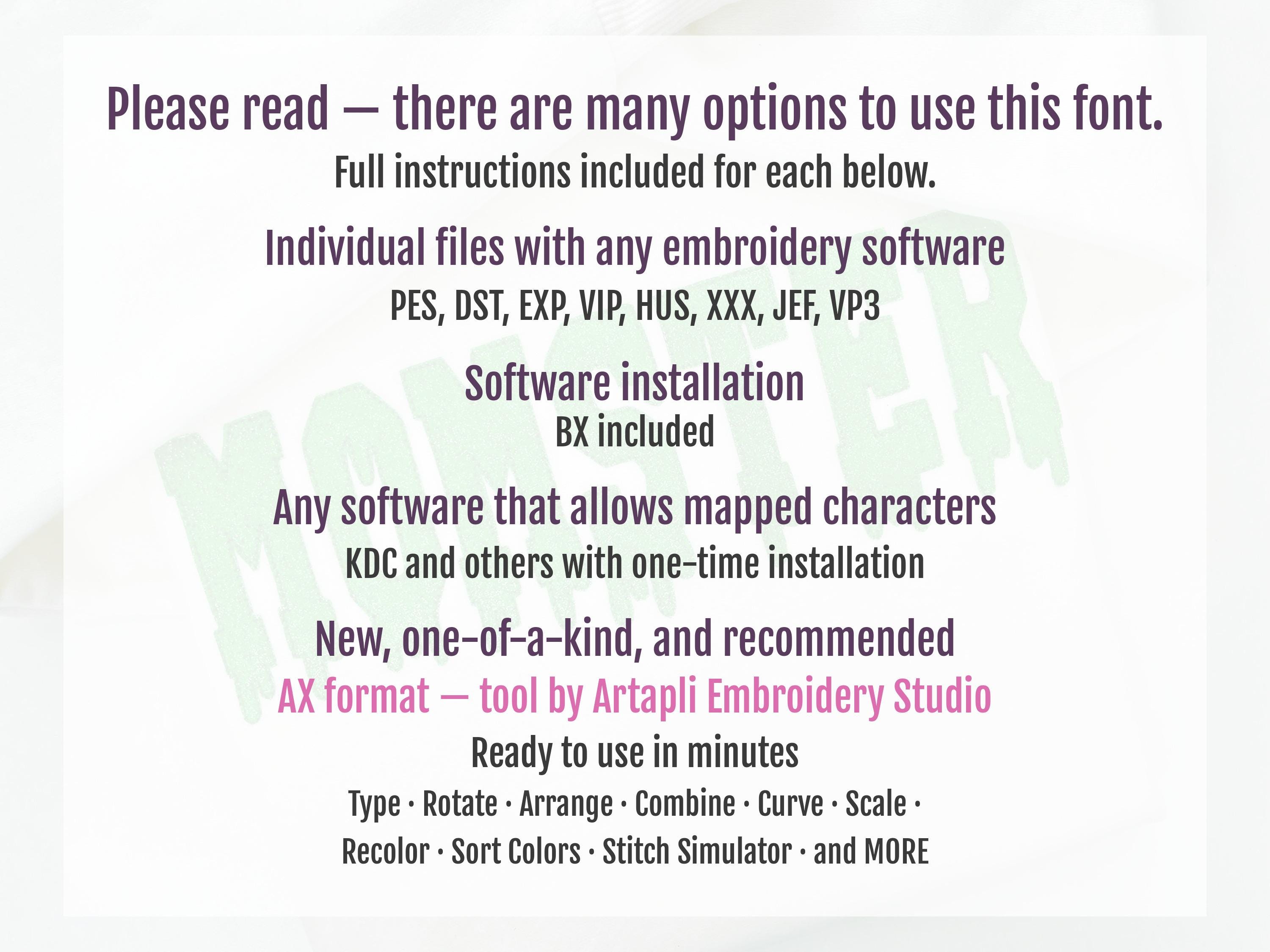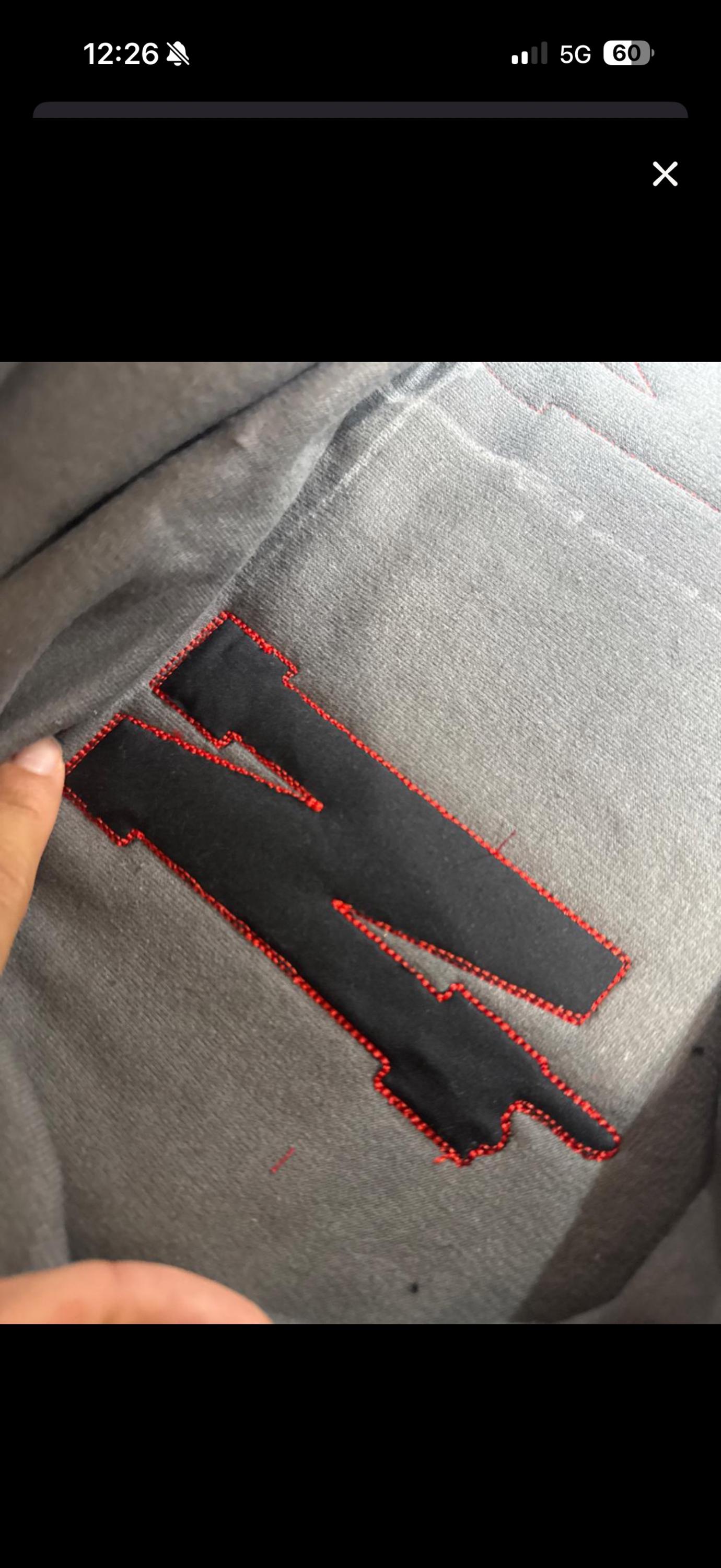
Halloween Melted Varsity block Font glitter HTV vinyl applique Melting Alphabet Monogram machine embroidery designs sizes 2.8 up to 6 inch
Use glitter HTV vinyl for this font. Easy and quick! Stunning effect!
The font did not stitch out as expected. I reached out to the seller and they basically said that it was something on my side since there was nothing wrong on theirs. I used the same stabilizer and technique i’ve been using for years. I provided a picture too. (The stitches look very messy and are not lining up as descripted)